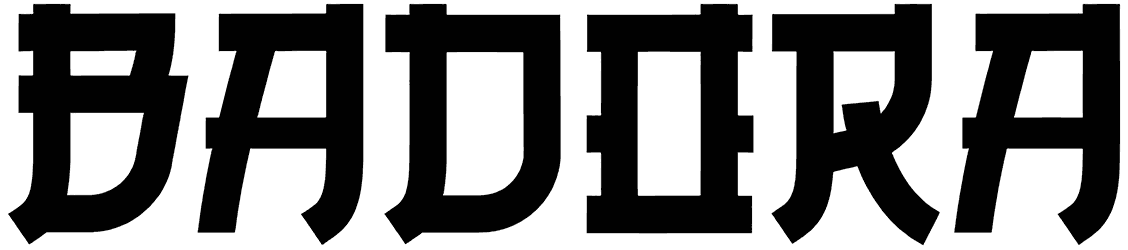
Badora Font
When you are working on a unique Asian-themed design, using a lettering face like Badora can be a nice opportunity to spice it up. Even without numbers, this Asian font can bold your words and give them an edgy visual. Just have the courage to be creative. Different topics, from games and movies to artistic tattoos, can be cool with this Japanese font.